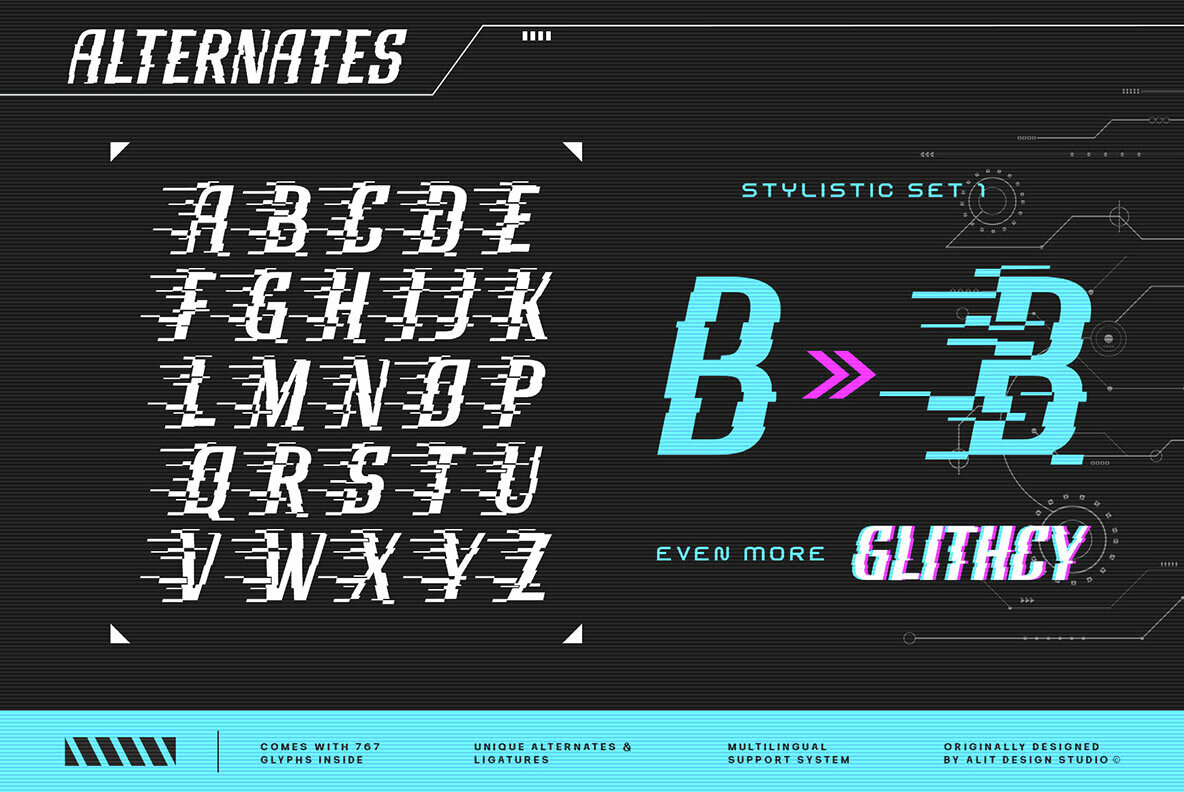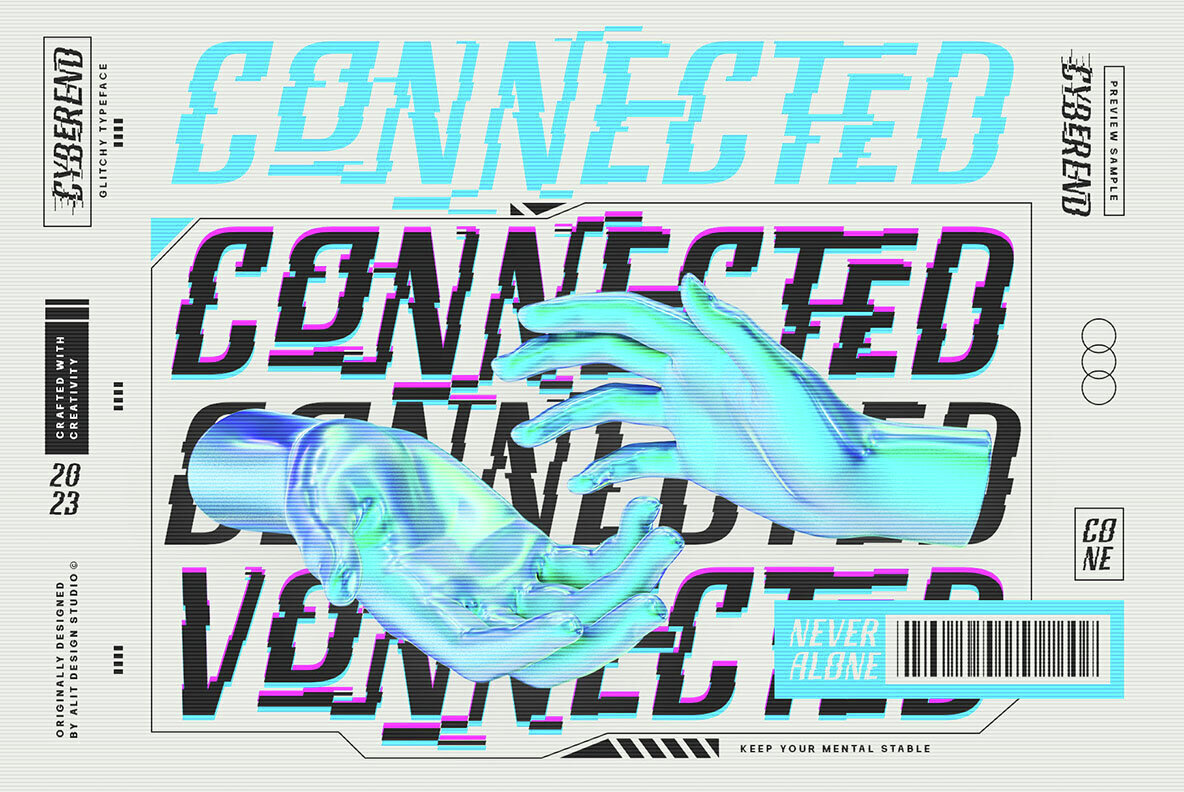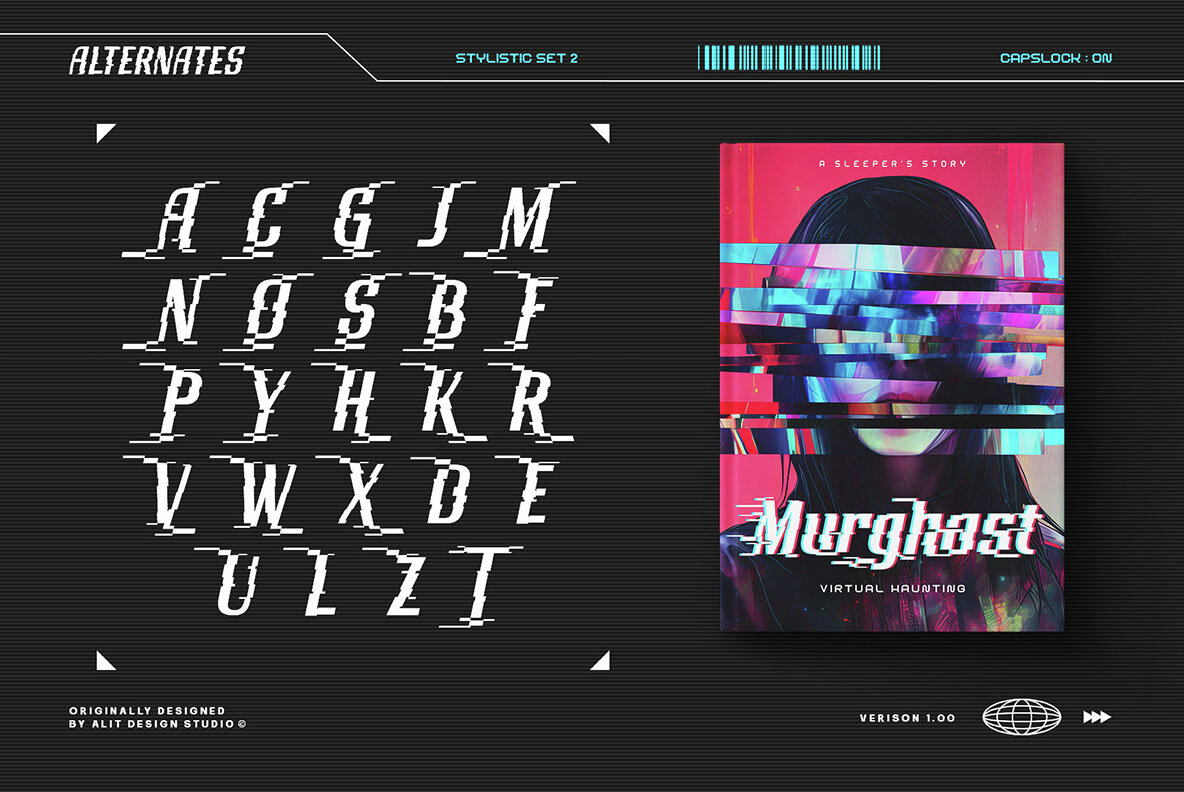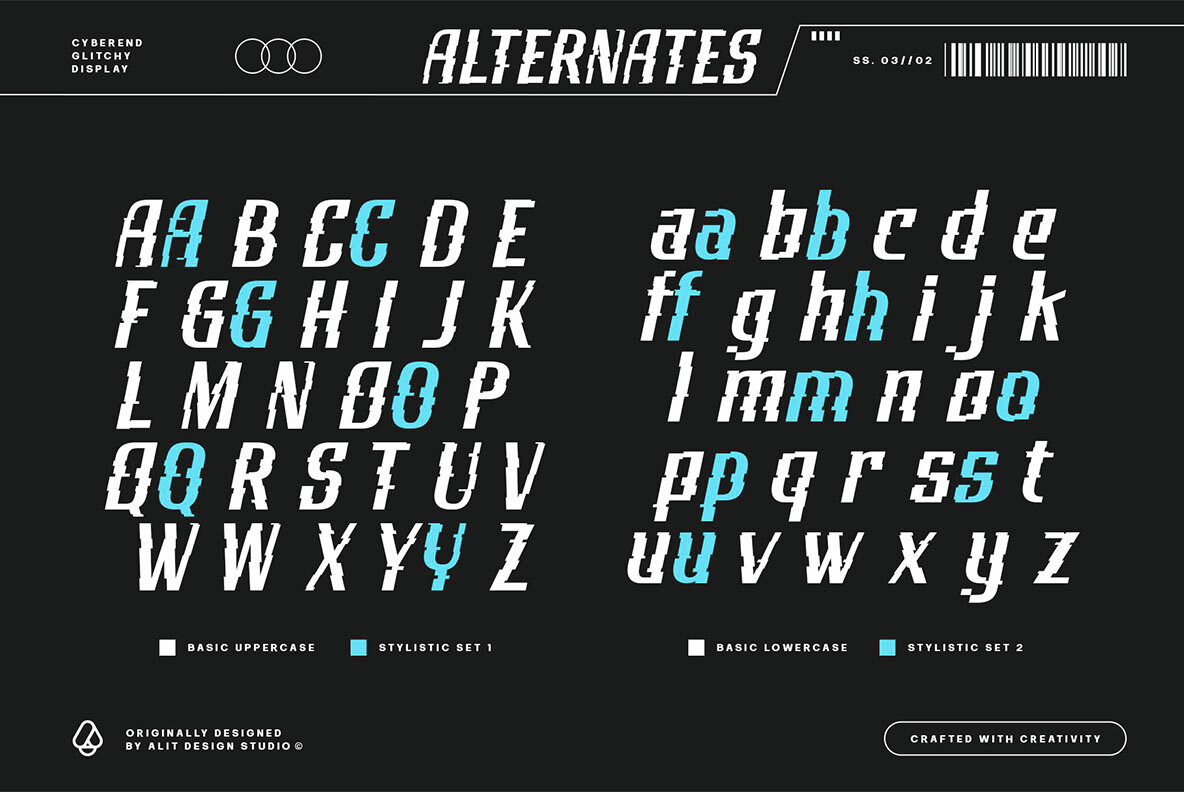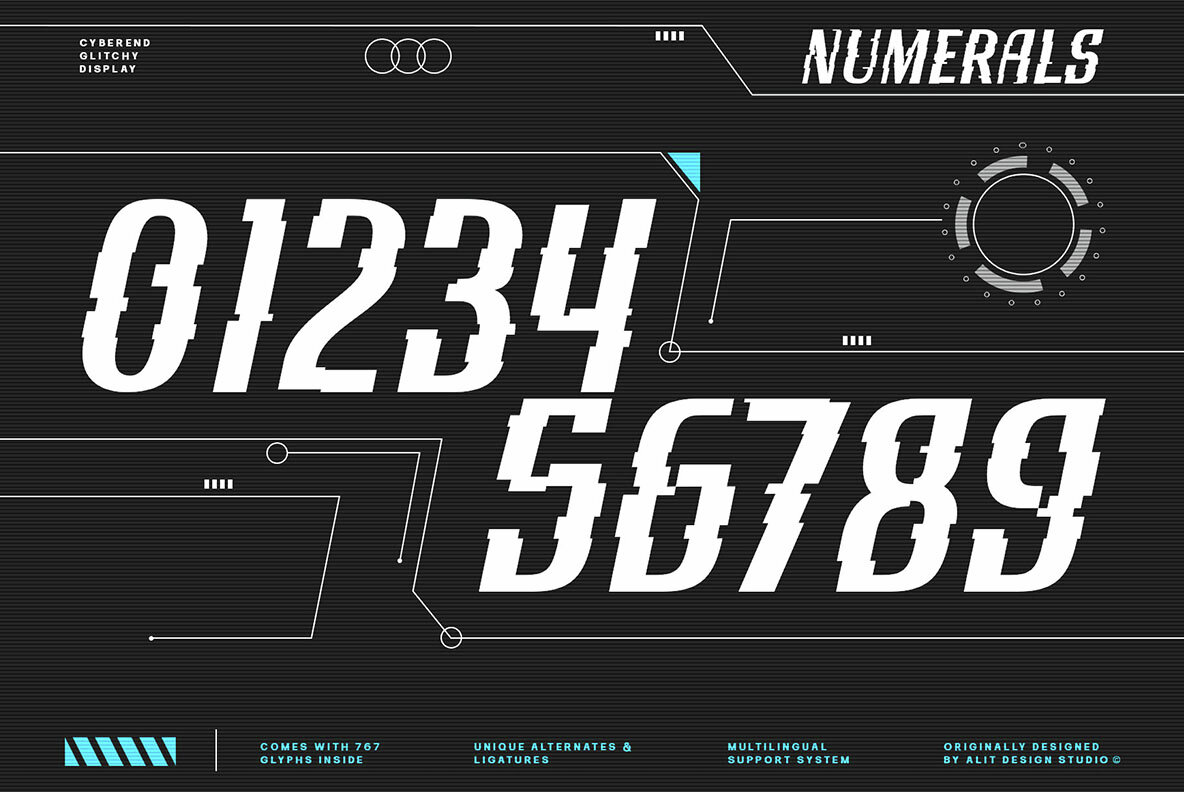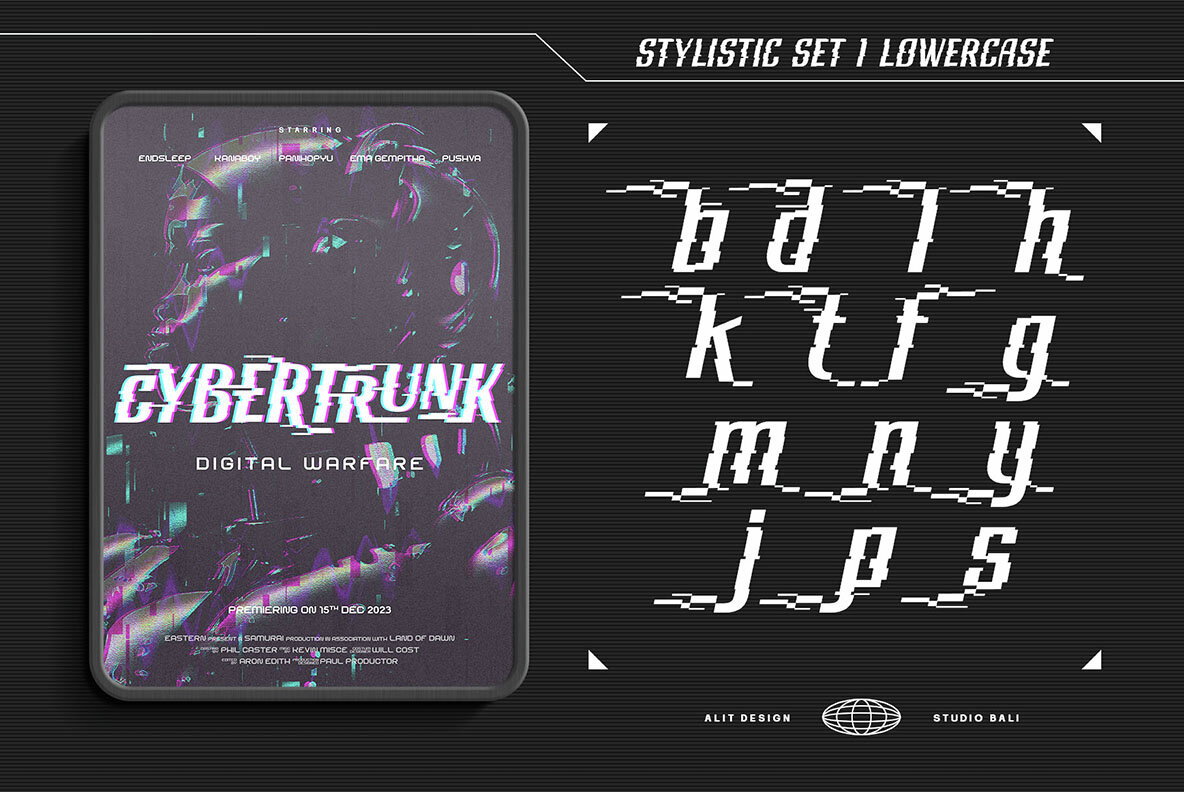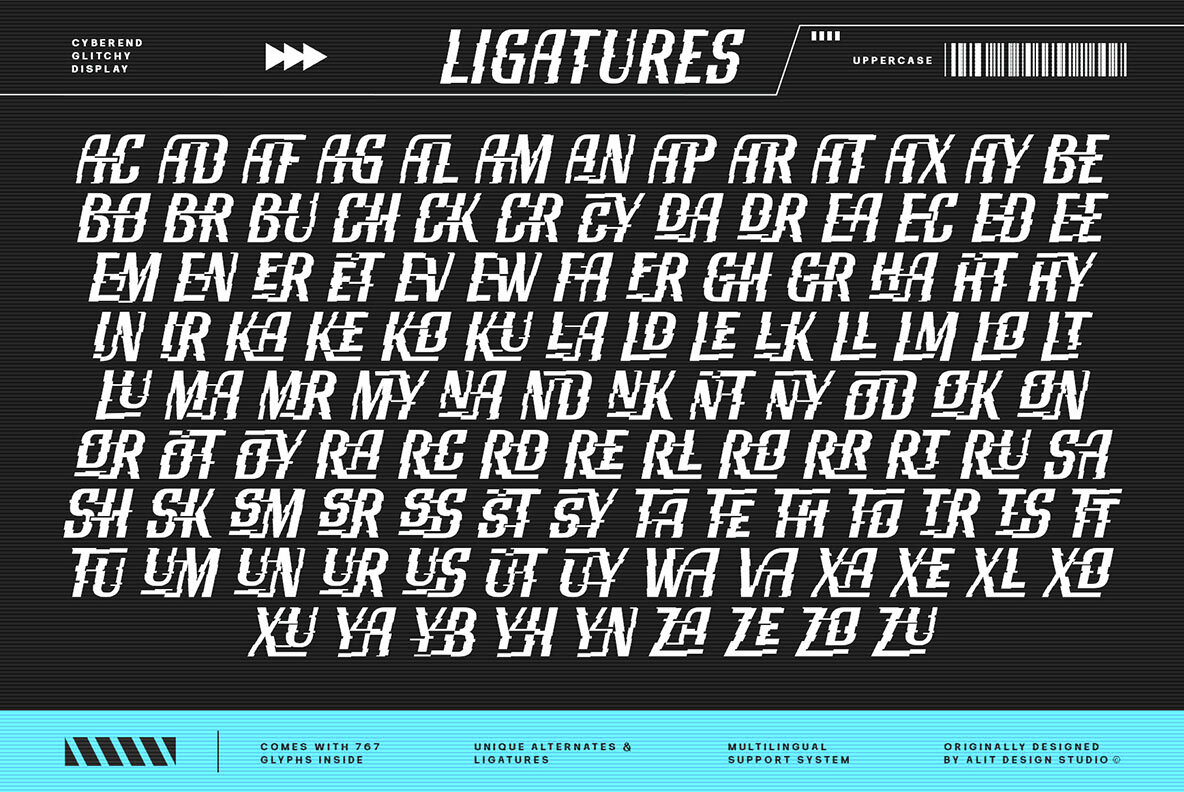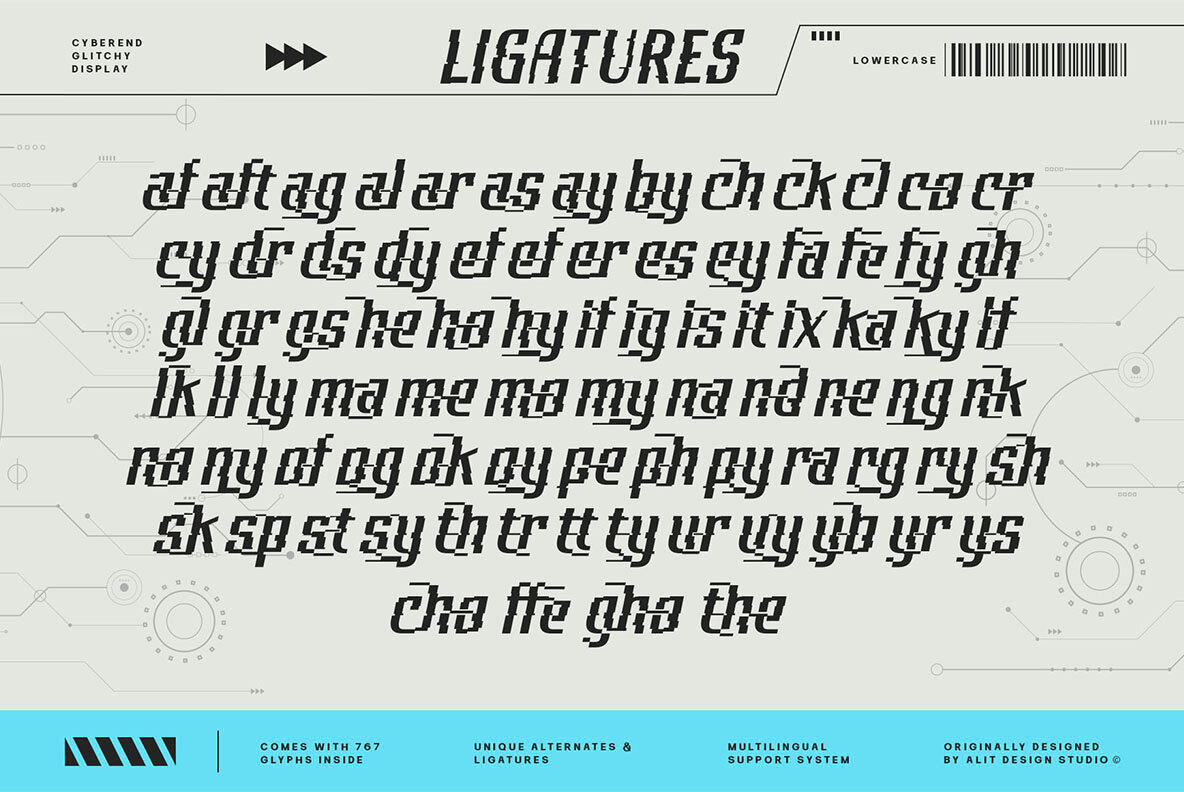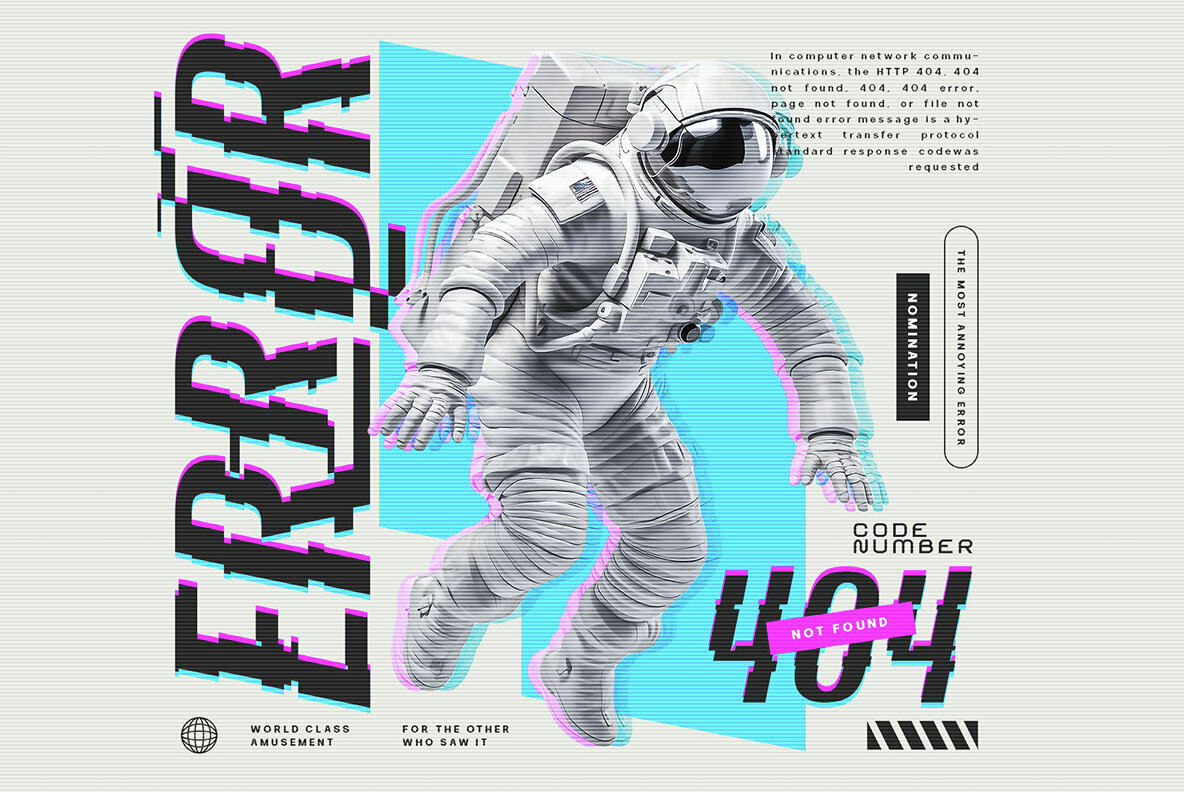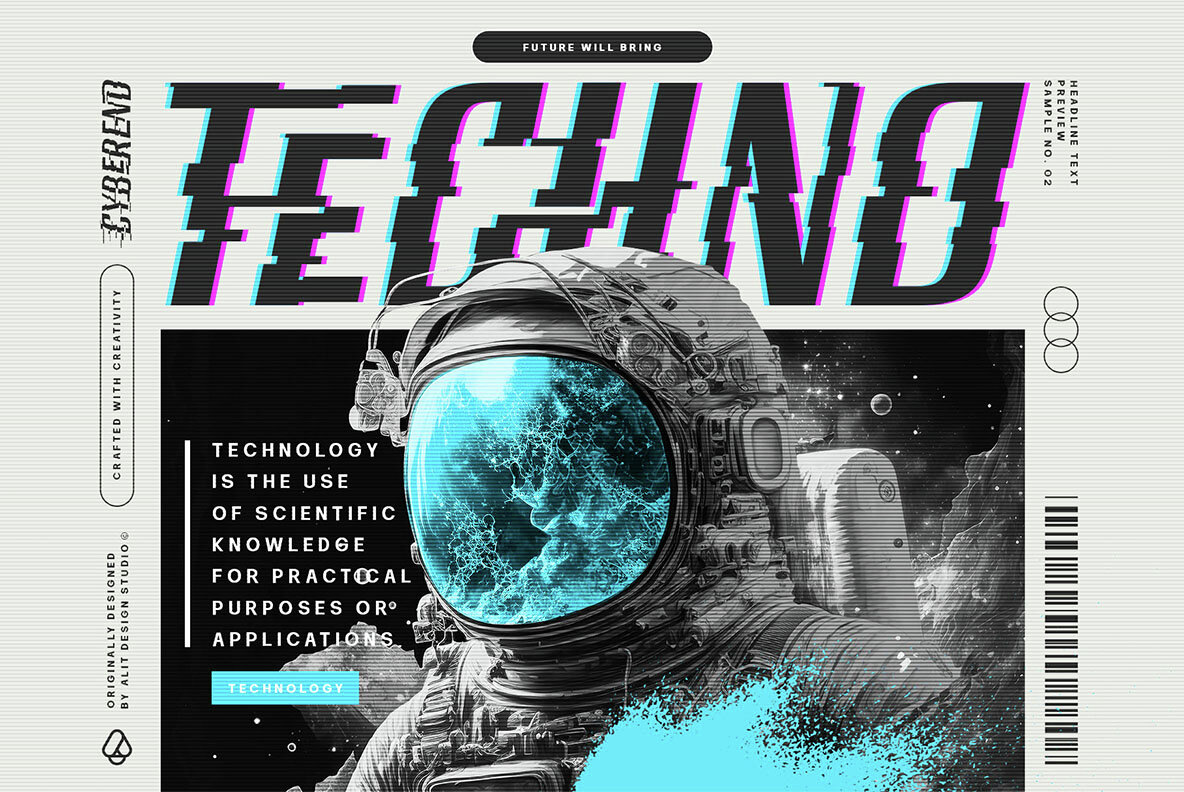
Cyberend Font
Cyberend Regular
Introducing "Cyberend" – a font that seamlessly marries the raw, edgy aesthetic of cyberpunk with the precision of square pixels and the sleek modernity of italic serifs. As the digital world converges with futuristic design, Cyberend emerges as the quintessential typeface for those seeking a cyberpunk-inspired typographic experience. Dystopian Elegance: Cyberend encapsulates the essence of cyberpunk, embodying a dystopian elegance that effortlessly blends chaos and sophistication. The font's italic serifs add a touch of rebellion and forward momentum to every character. Pixelated Precision: Immerse yourself in the pixelated precision of Cyberend, where each character is meticulously designed with square pixels. The result is a sharp, high-tech appearance that resonates with the digital landscapes of cyberpunk aesthetics. Versatile Impact: From gaming interfaces to film titles, Cyberend makes a bold statement in any digital or print medium. Its versatility allows you to infuse cyberpunk vibes into logos, posters, websites, and more, giving your projects a distinctive and immersive feel. Futuristic Legibility: Despite its cyberpunk flair, Cyberend prioritizes legibility. Each character is crafted to ensure readability, maintaining a perfect balance between avant-garde design and practical functionality. Unleash the power of Cyberend to transport your audience into a cyberpunk-inspired future. Whether you're designing for tech enthusiasts, gamers, or cyberpunk aficionados, this font is your gateway to a digital realm where style meets rebellion. Upgrade your typographic game with Cyberend and let your creations transcend the boundaries of conventional design.